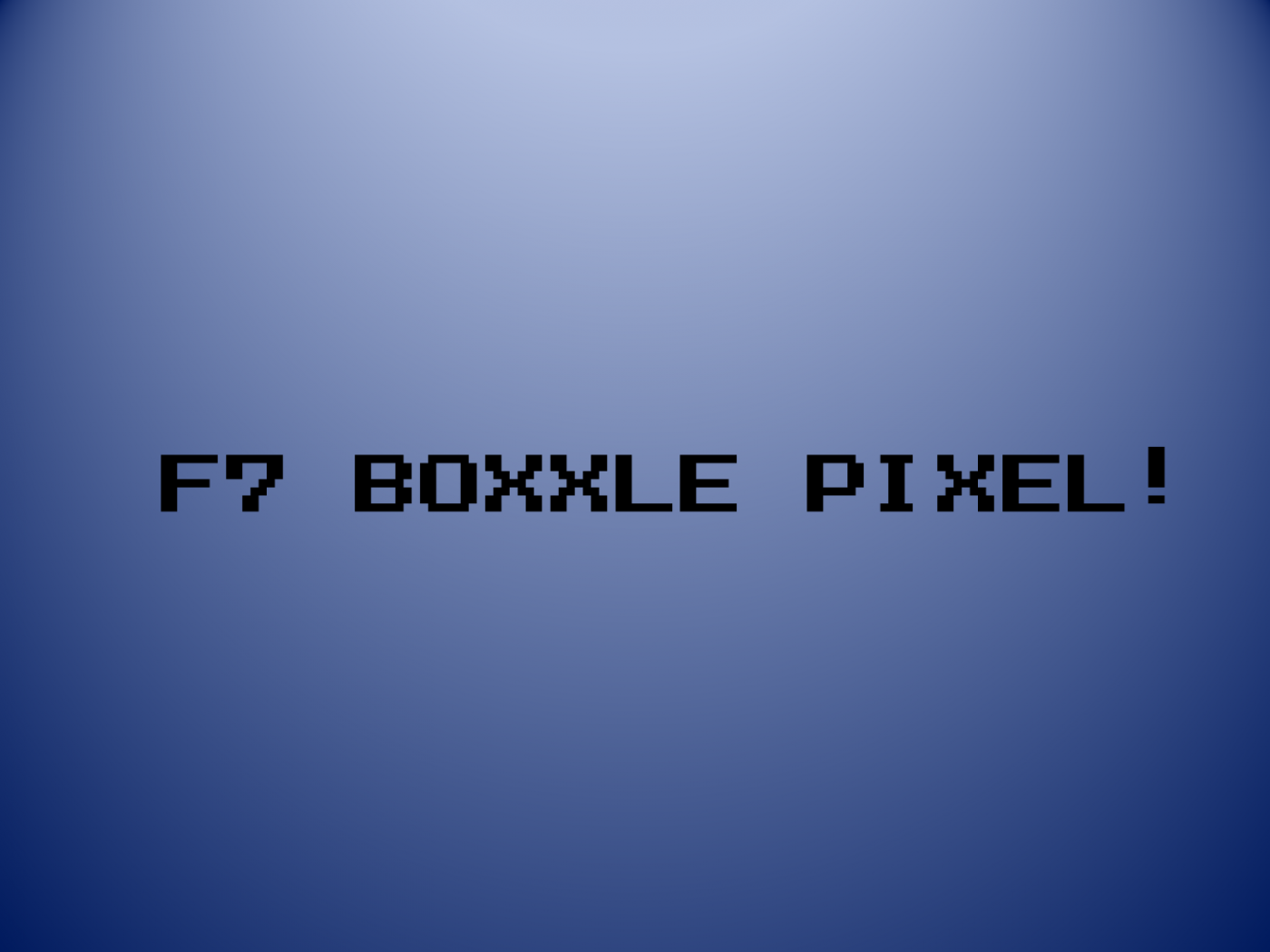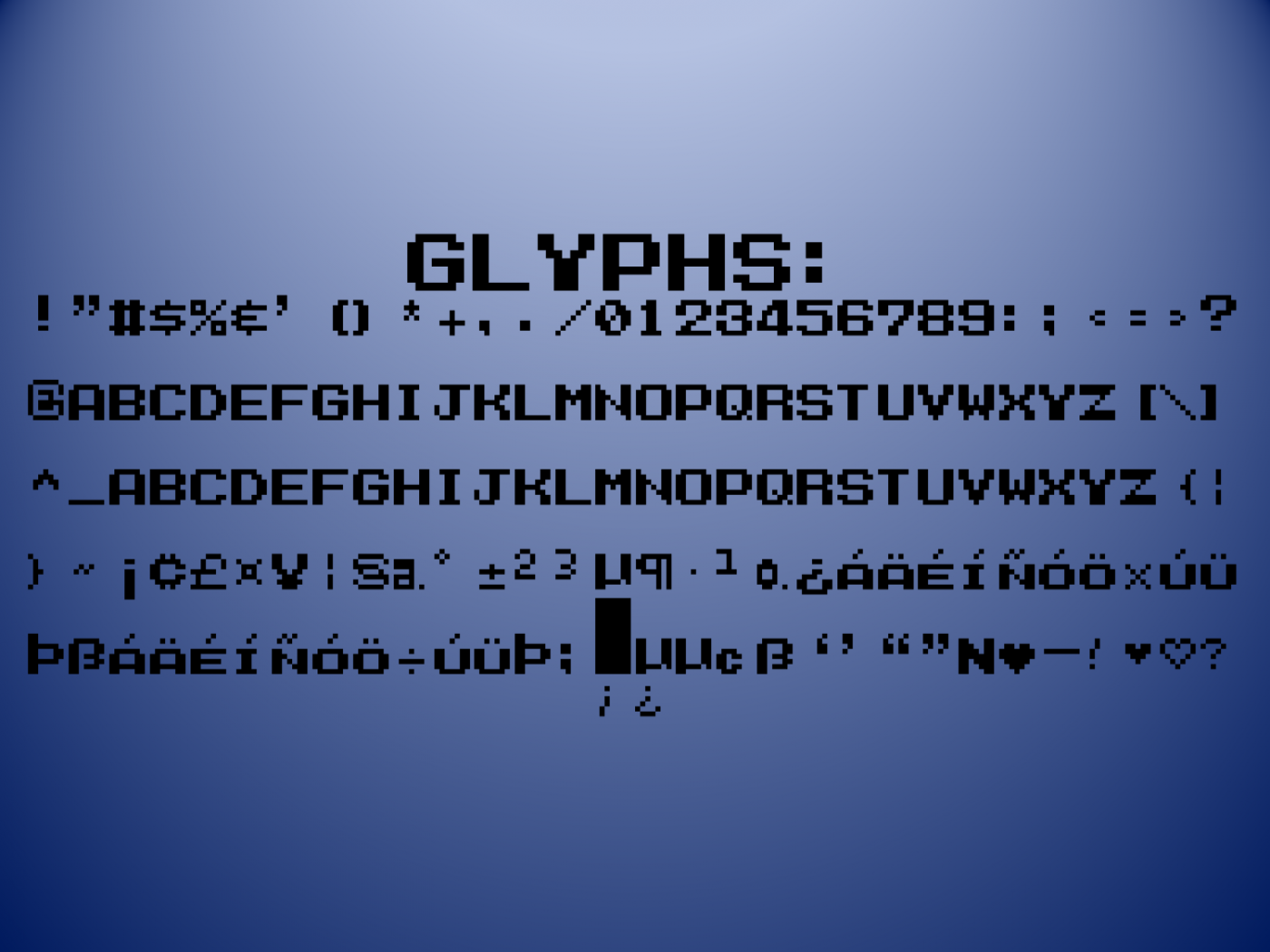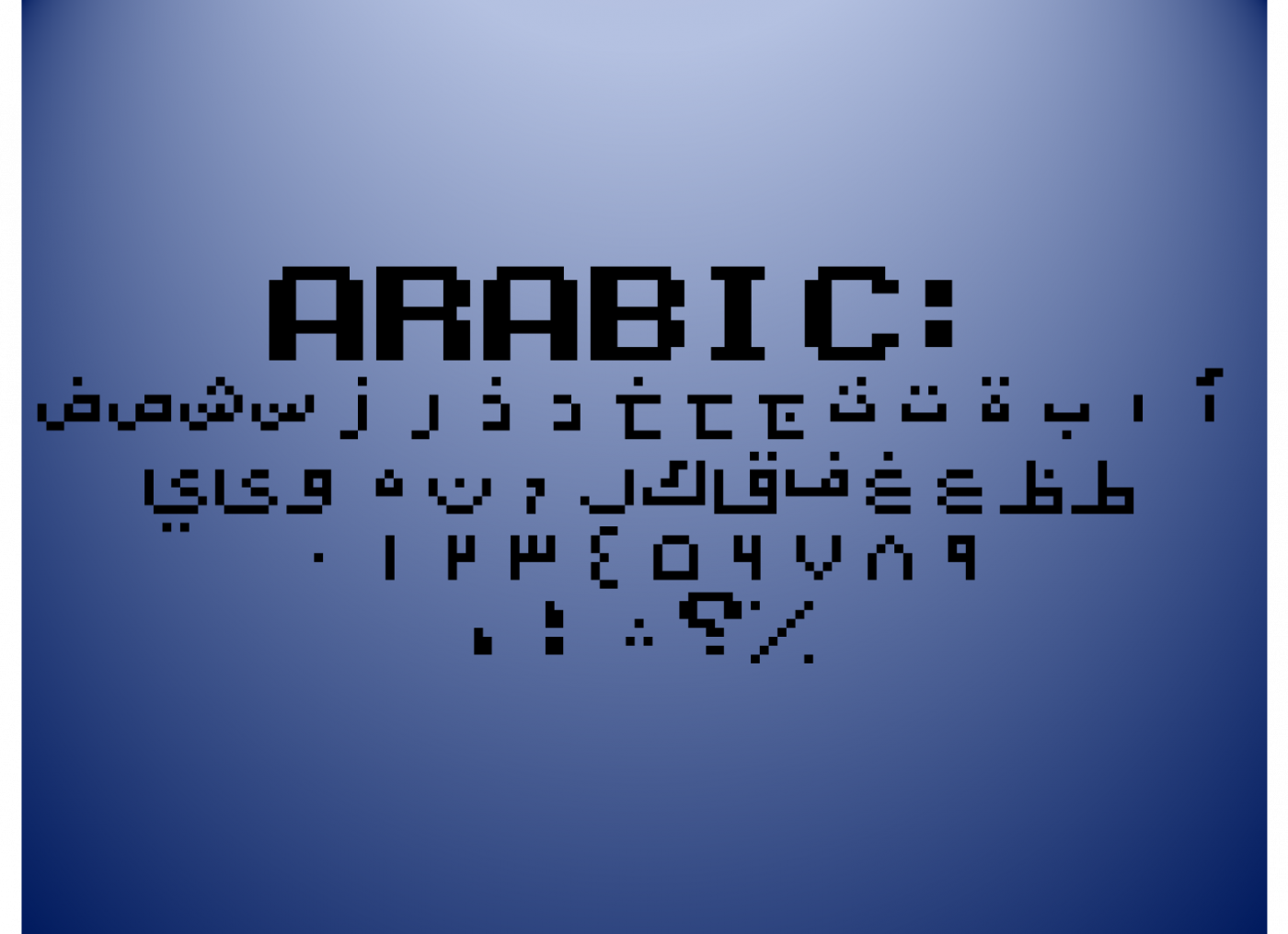
sorry for making a mistake on /, it´s now fixed.
that tall one is to prevent the top bricks from glitching
Also comes with arabic!
@digitalio-2 ok, but it might have mistakes; like the one of two backslashes